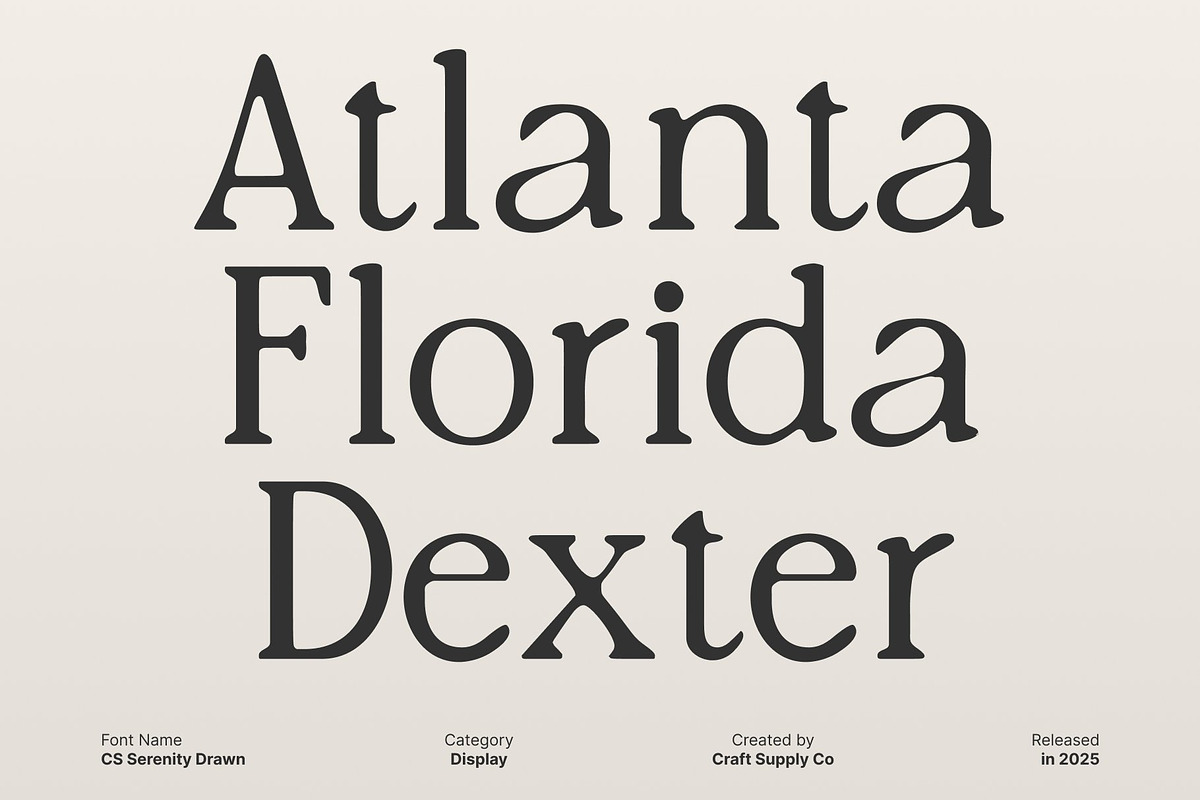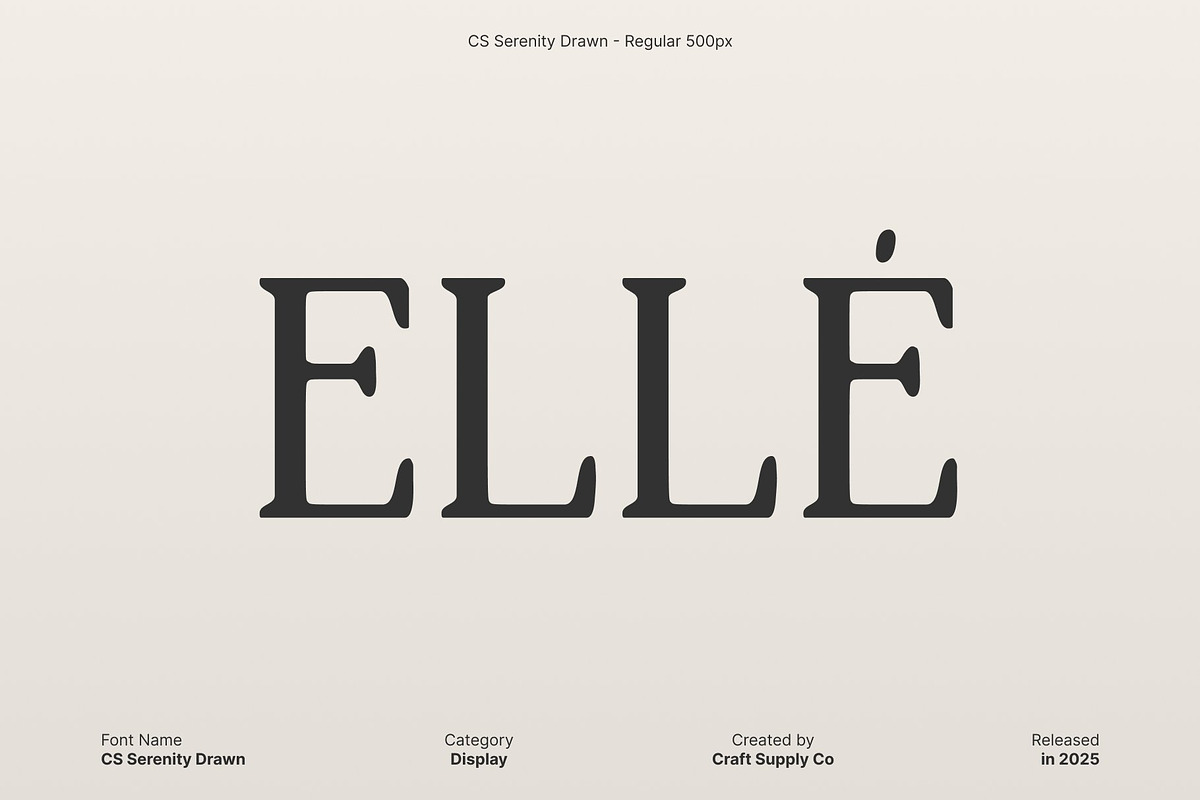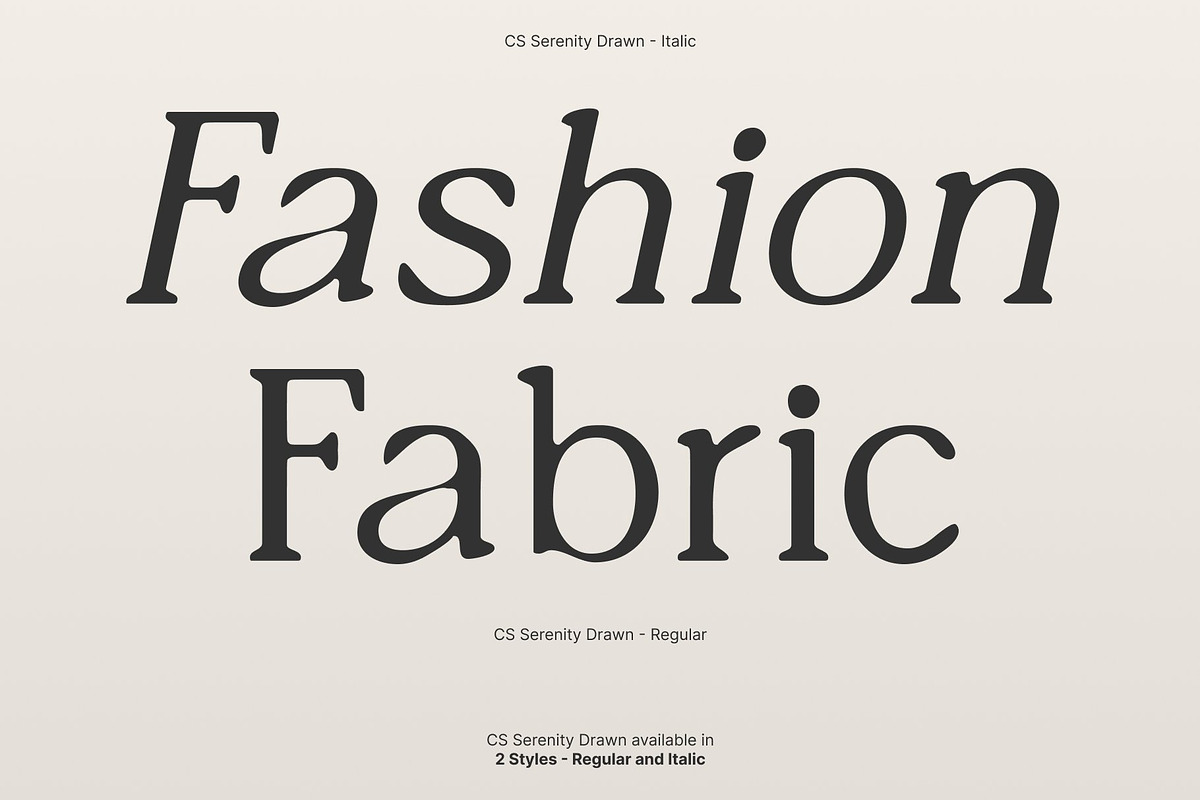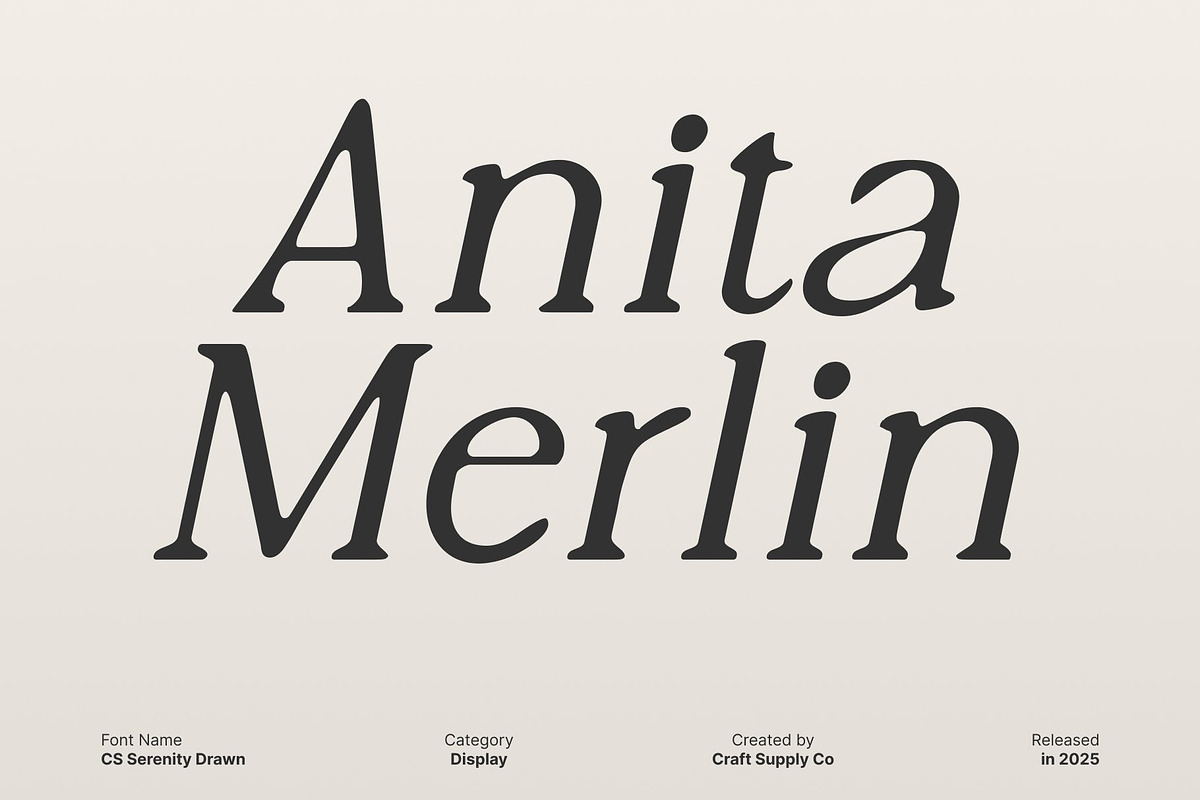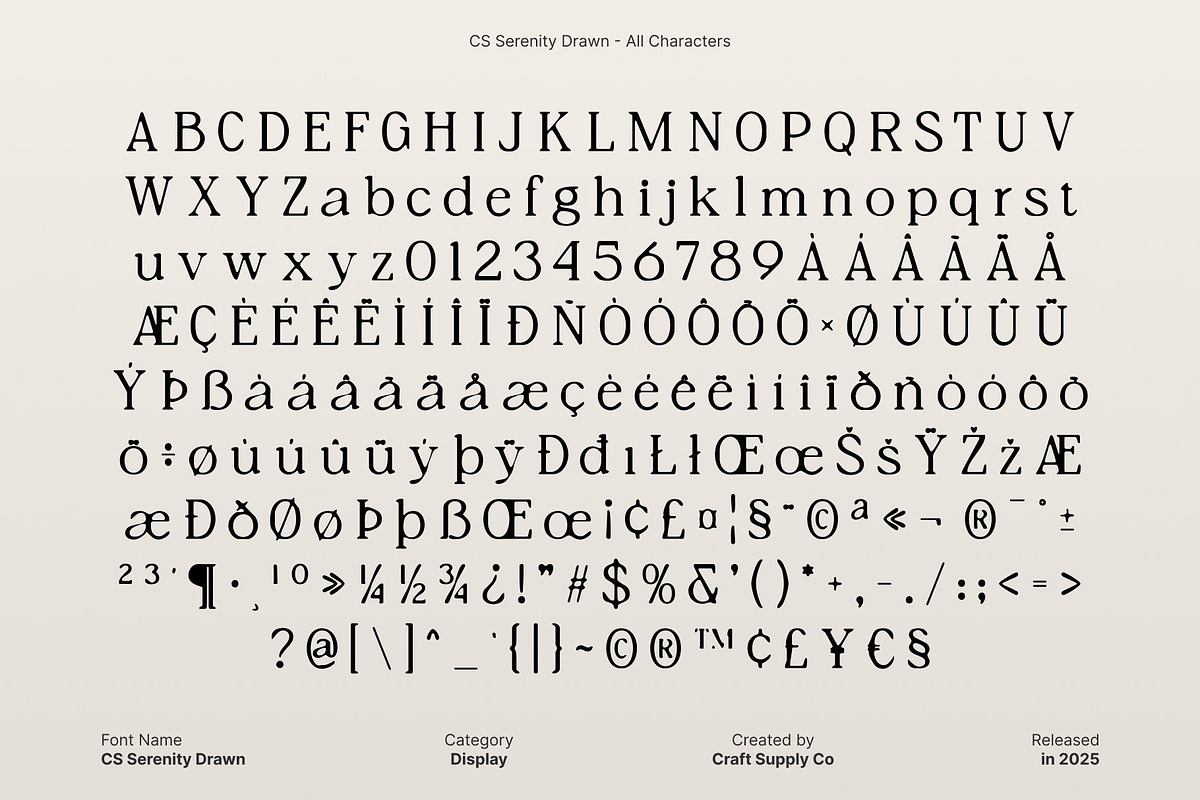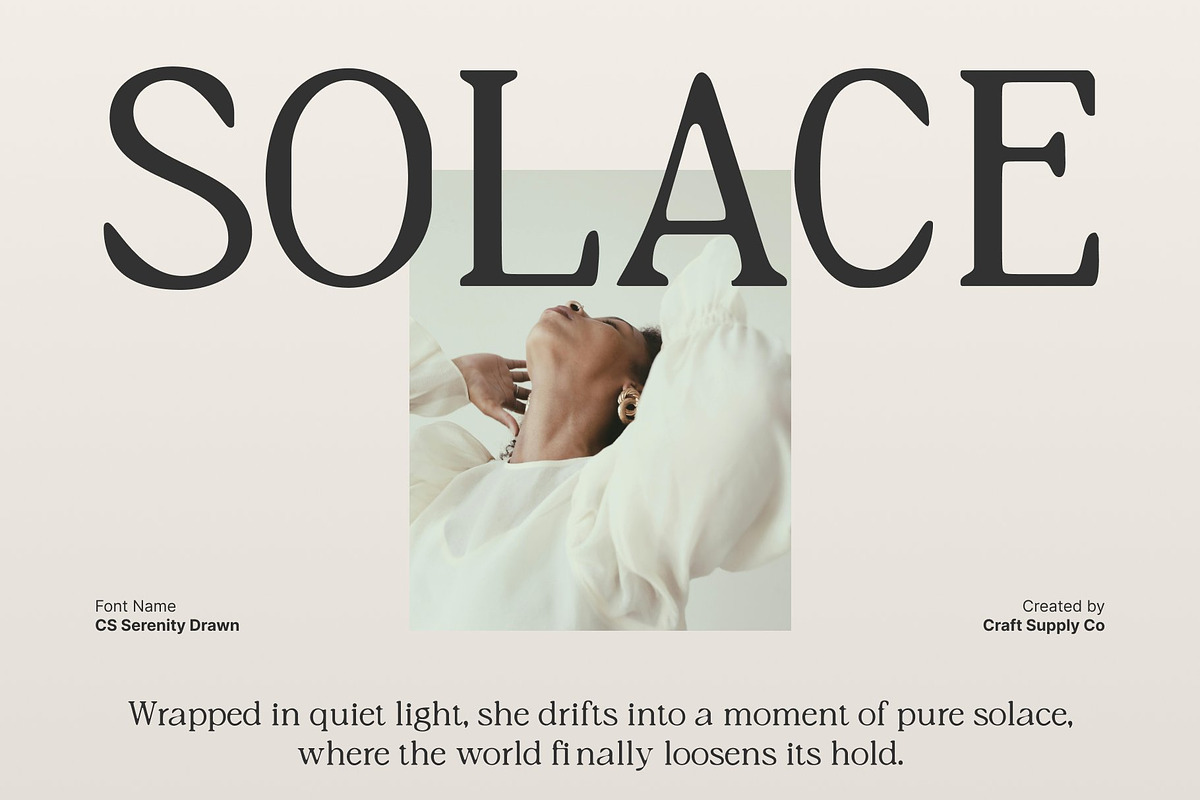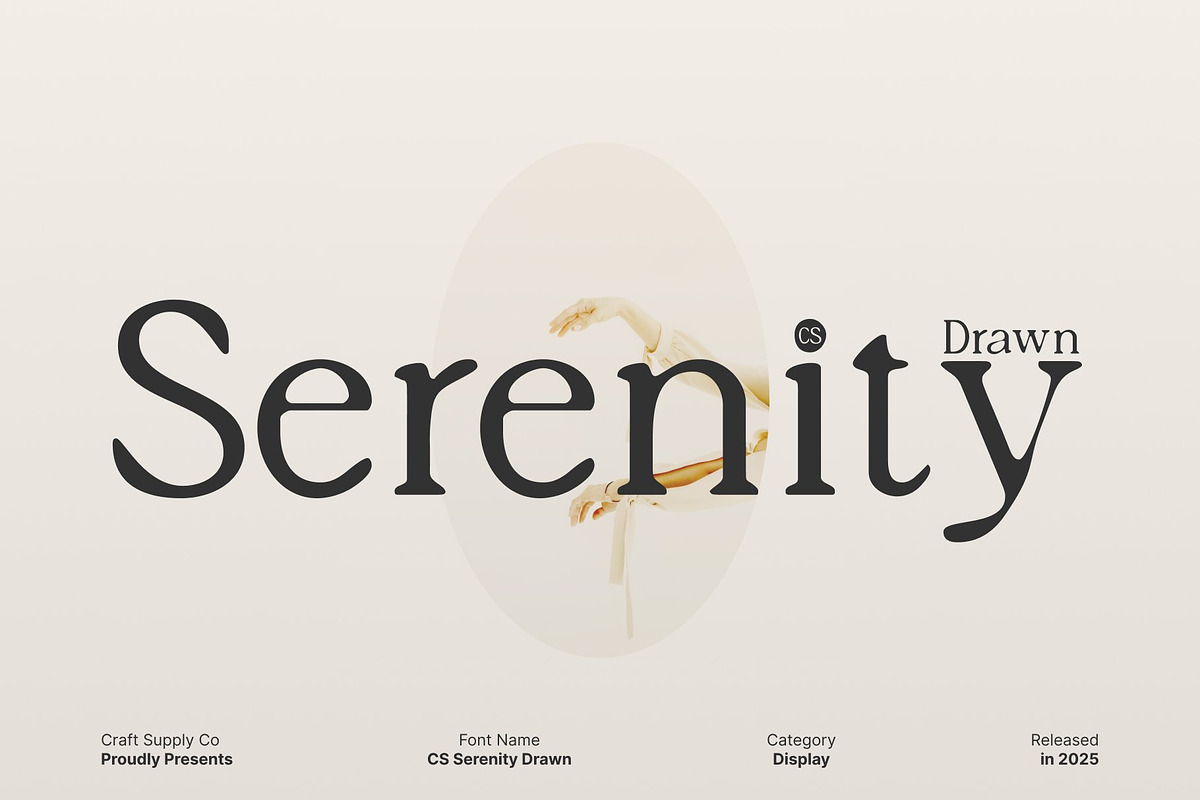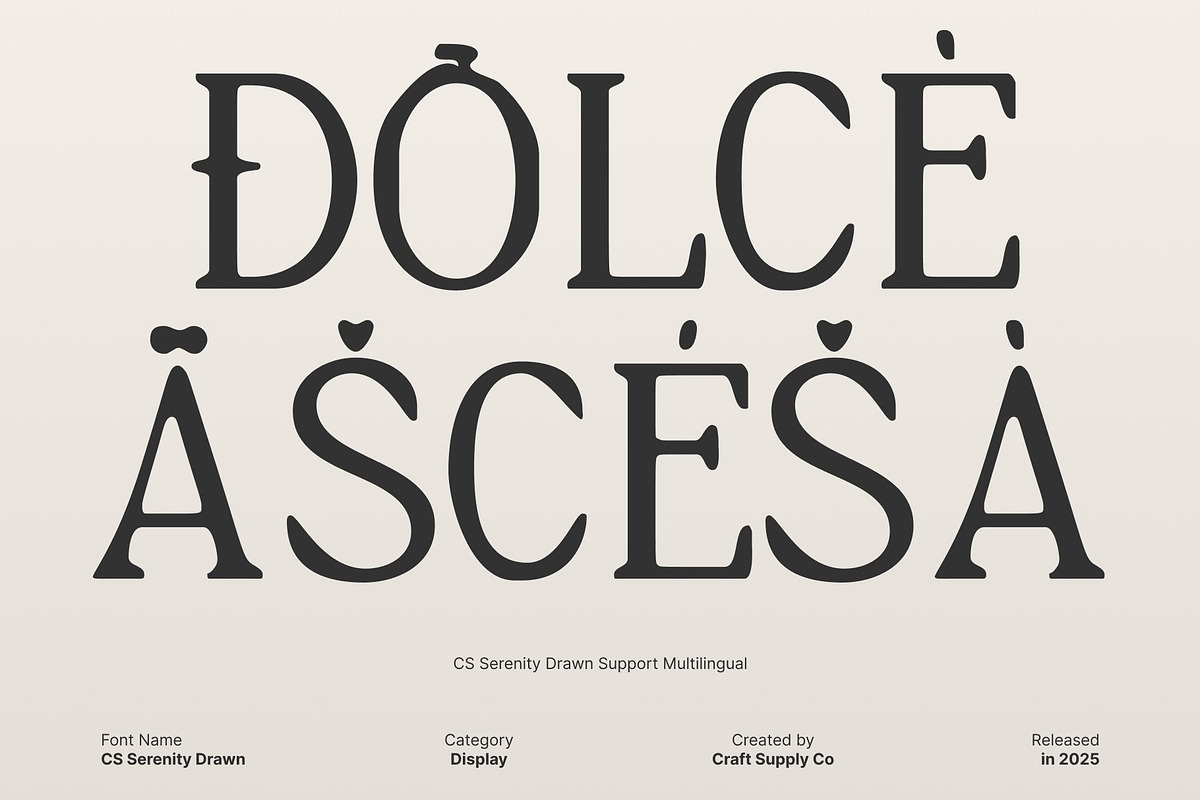
CS Serenity Drawn
CS Serenity Drawn – Soft Serif Font with Minimalist Elegance
Gentle Curves That Feel Modern and Refined This is a true soft serif font that blends smooth, gentle curves with a clean, minimalist structure. Its balanced proportions and refined letterforms create a calm yet stylish appearance. The softness of the serifs gives every word a graceful flow, delivering an elegant impression that feels approachable, modern, and visually pleasing.
Drawn Texture for Artistic and Personal Character The drawn texture adds a subtle handcrafted quality that elevates the minimalist design. Instead of feeling rigid or overly polished, the font gains personality through organic imperfections and expressive strokes. This artistic touch creates depth and authenticity, making the typeface feel more human, emotional, and distinctive.
Stylish and Instagram-Ready Aesthetic Designed with modern visual culture in mind, this font fits seamlessly into Instagram-ready layouts and trend branding. Its soft elegance photographs beautifully, making it ideal for social media posts, fashion visuals, lifestyle content, and modern posters. The combination of softness and minimalism ensures that the font feels current, fashionable, and effortlessly chic.
Perfect for Fashion, Branding, and Contemporary Design This font shines in fashion branding, editorial layouts, packaging, and promotional materials that aim to feel stylish yet relaxed. It balances clarity with beauty, making messages feel refined without appearing stiff. This font delivers a timeless yet trendy look that enhances modern design with softness, artistry, and elegant charm.